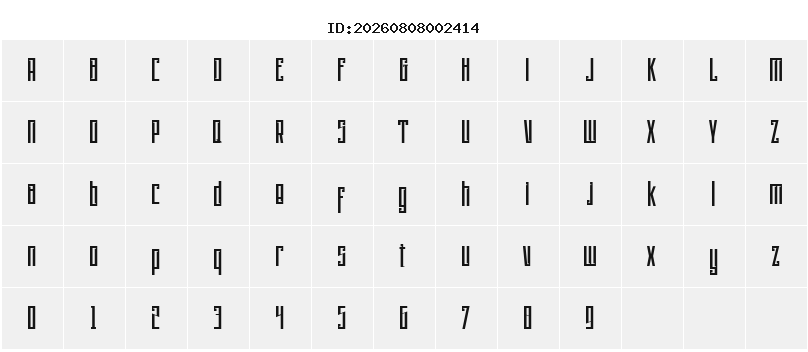
• Font Name: Psychotic Robots
• Designer: Tom Kolter
About Psychotic Robots.ttf
Psychotic Robots.ttf is a modern, elegant sans-serif font designed for ultimate readability and visual harmony. Perfect for branding, headlines, web design, and print materials.